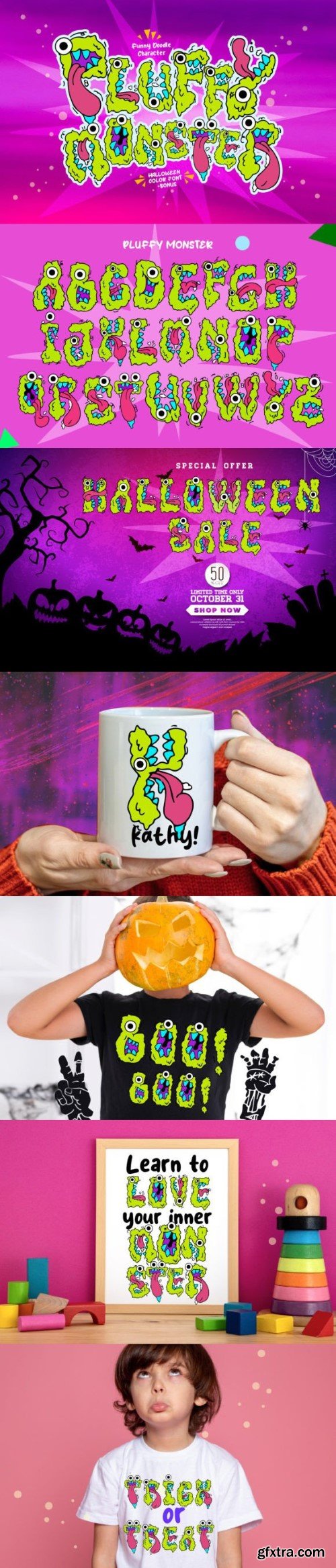
泡泡怪字体
Pluffy Monster is a cute and fun Halloween-styled detailed colored font. It can be used for Halloween-related projects, posters, school designs, flyers, book and movie covers, and much more!